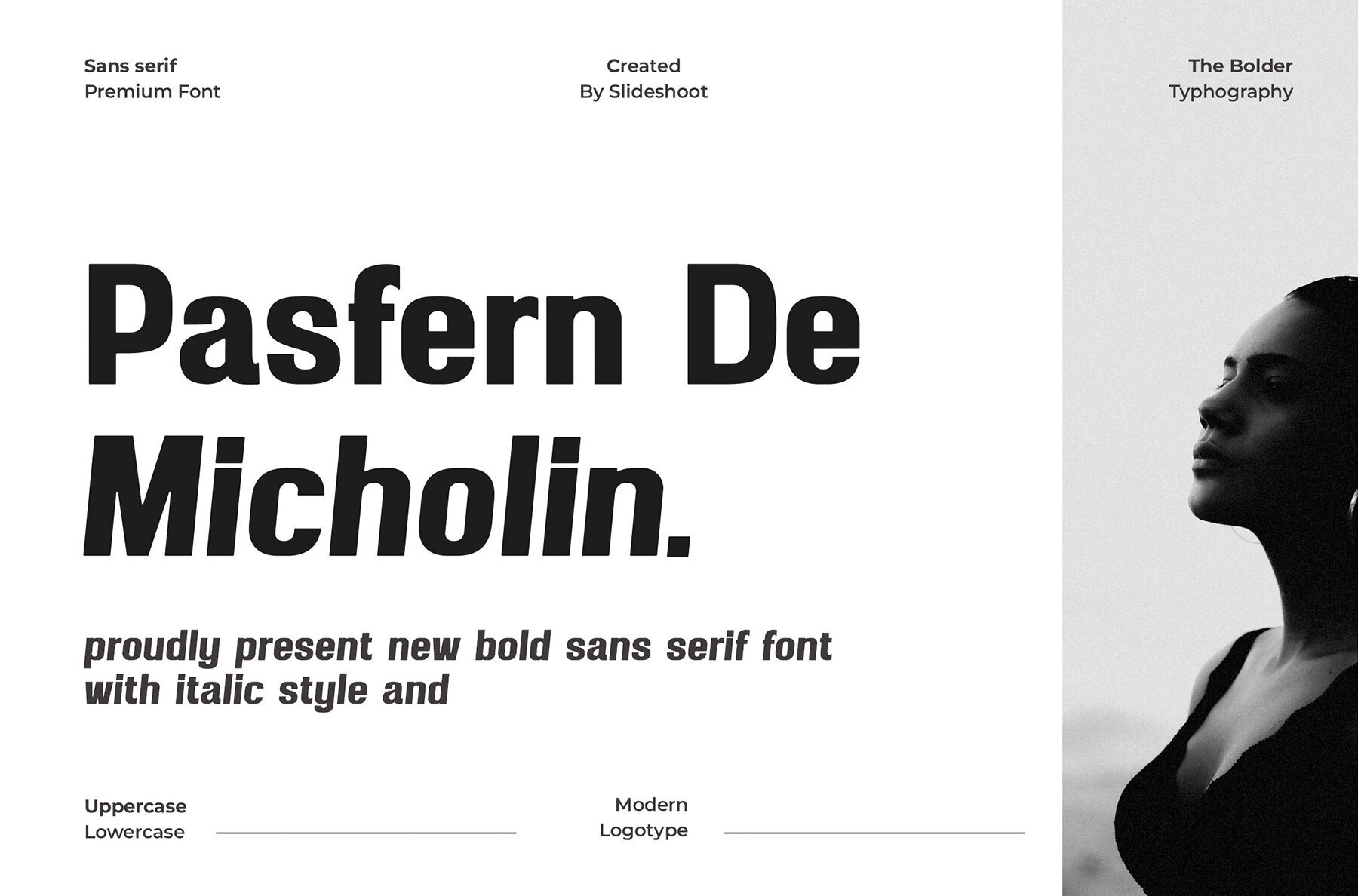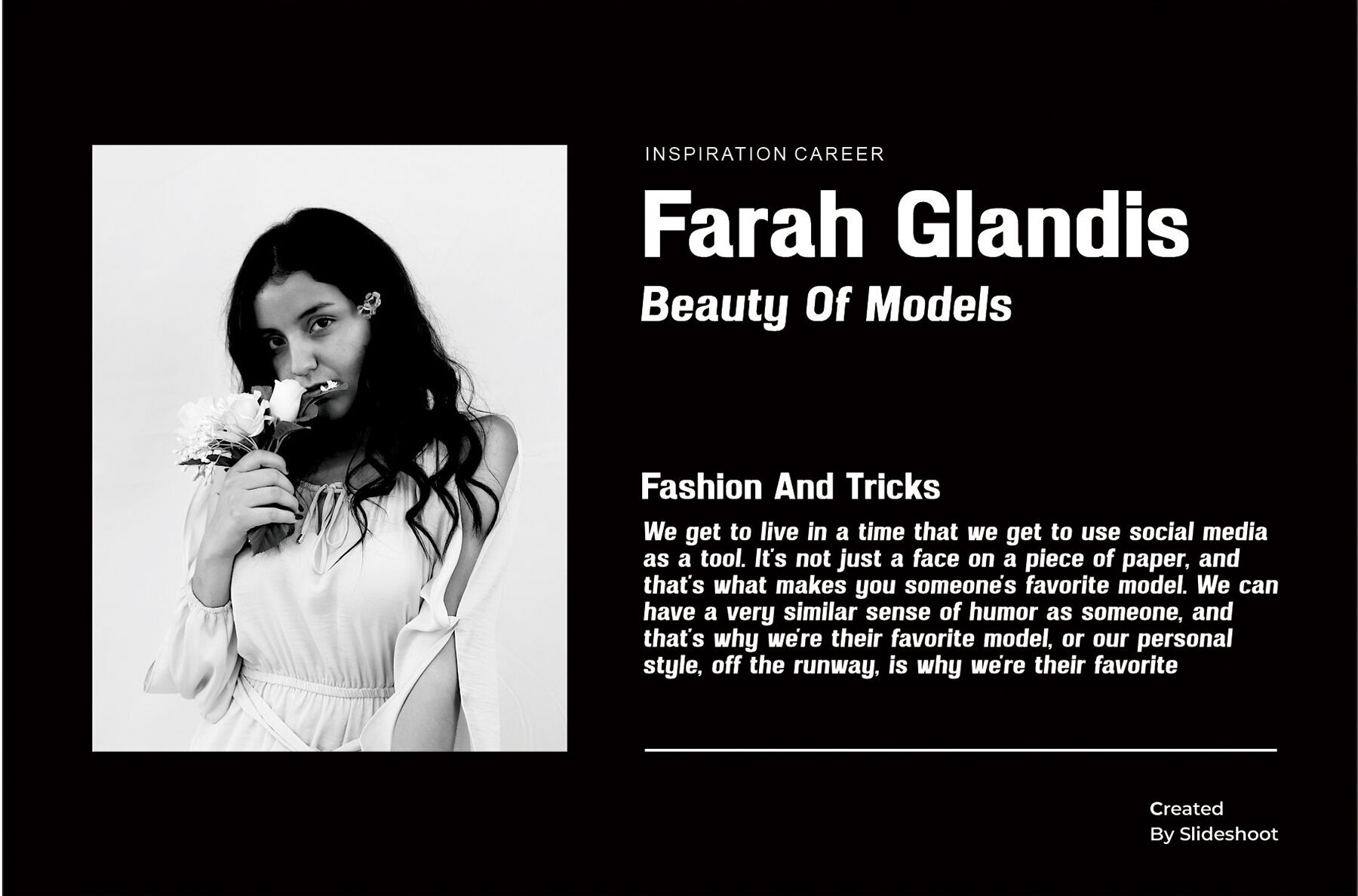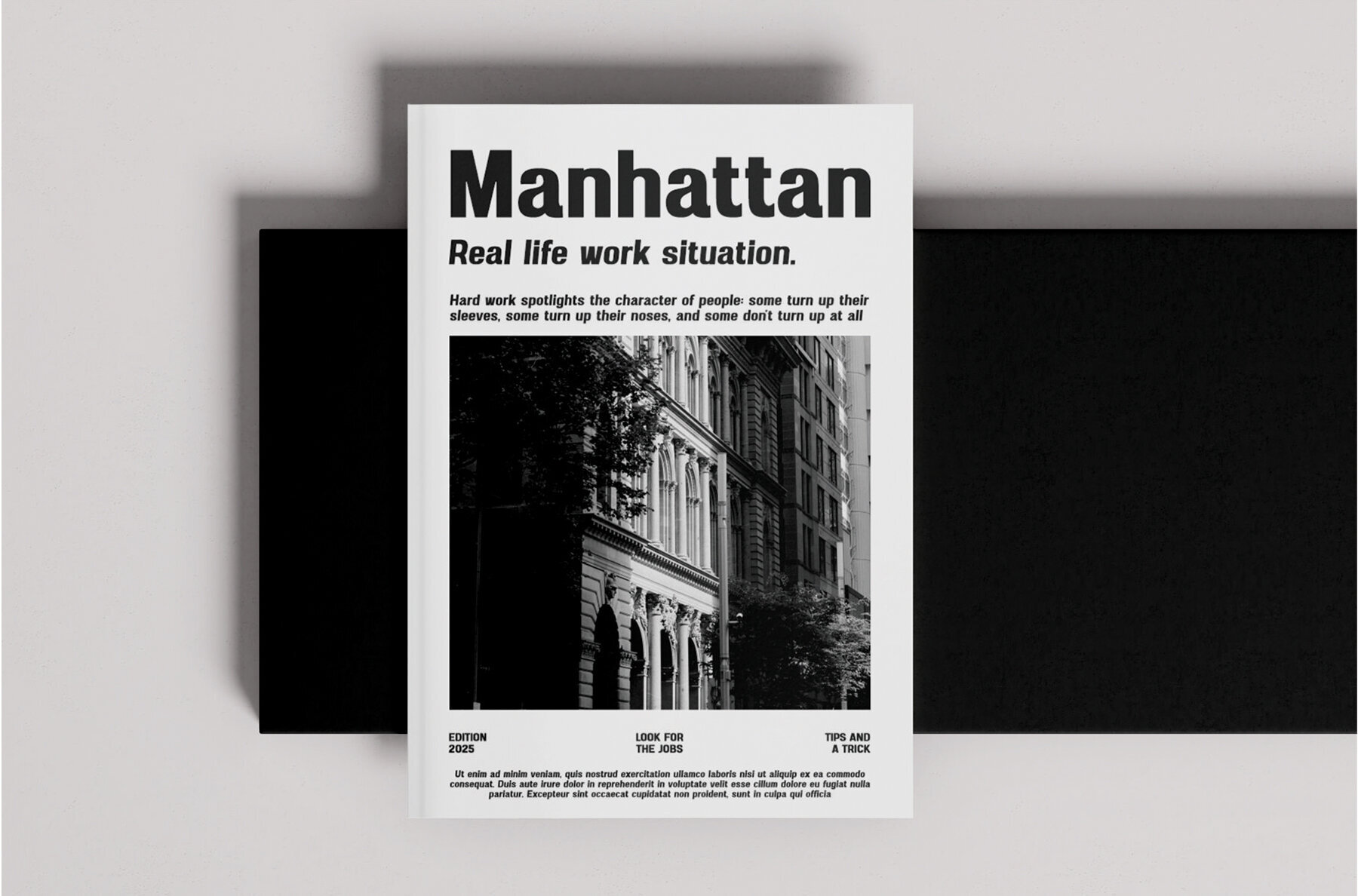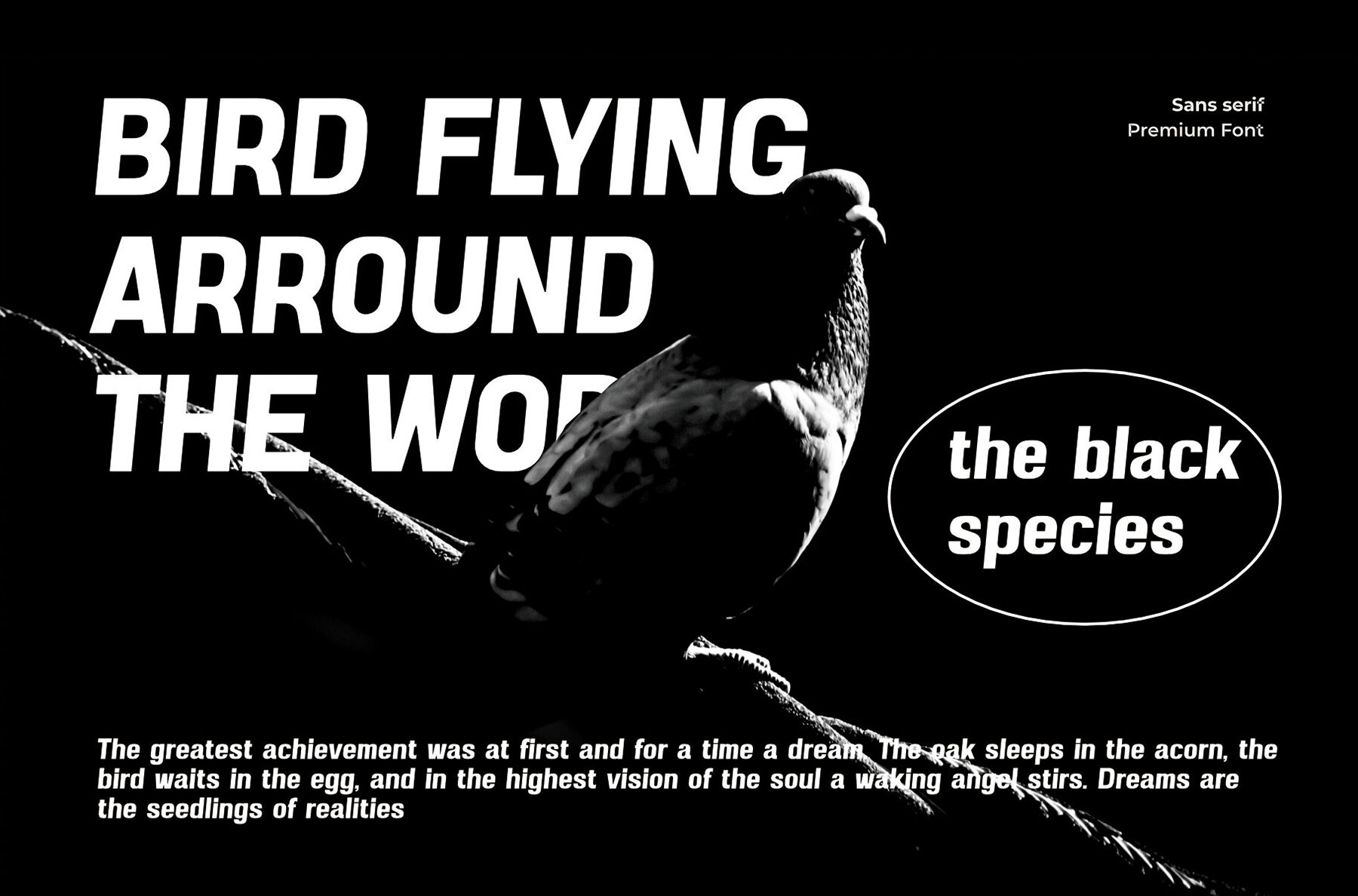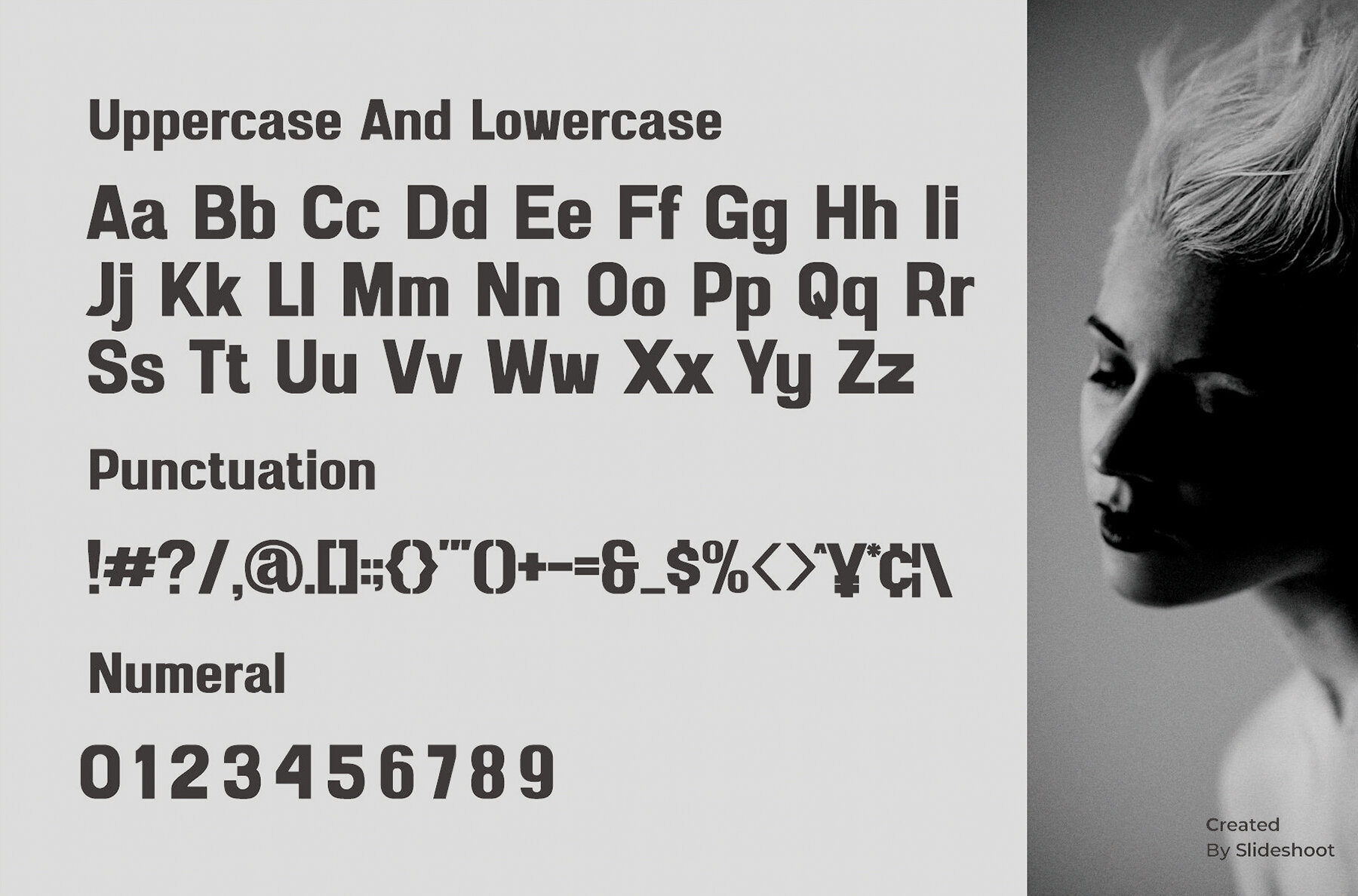
Pasfern De Micholin Font
Pasfern De Micholin is a distinctive bold sans serif font that brings a modern twist with its italic styling. This trendy, vibrant, and charming typeface stands out with its unique wood theme. It’s an ideal choice for enhancing a wide range of designs—from invitation cards and company logos to movie titles and business cards, as well as book titles, brand names, and more.Pasfern De Micholin Font